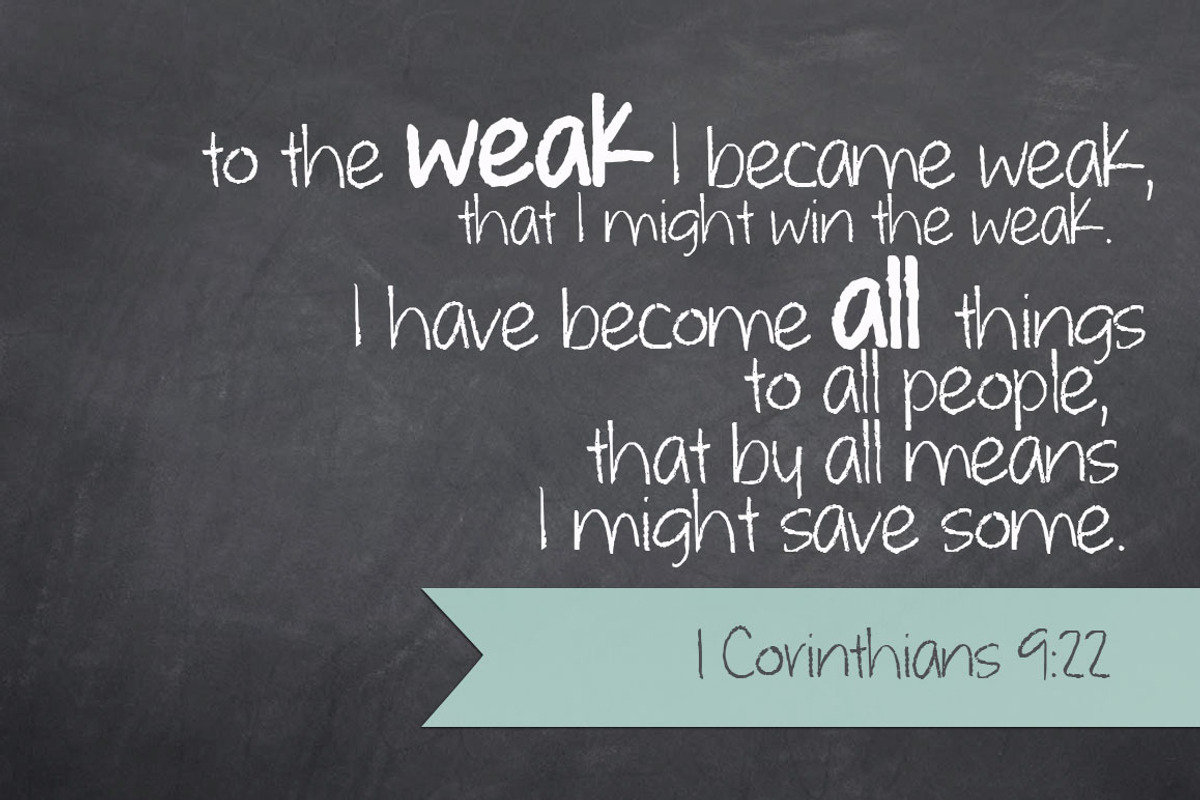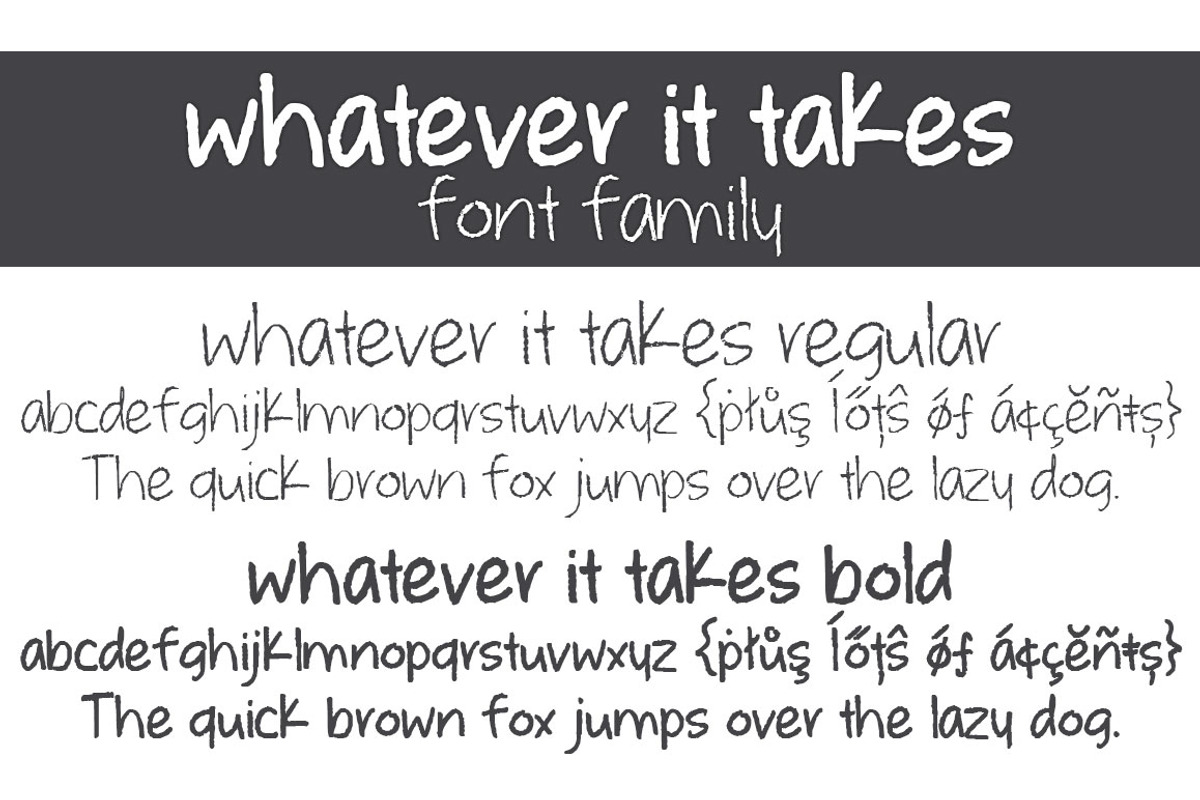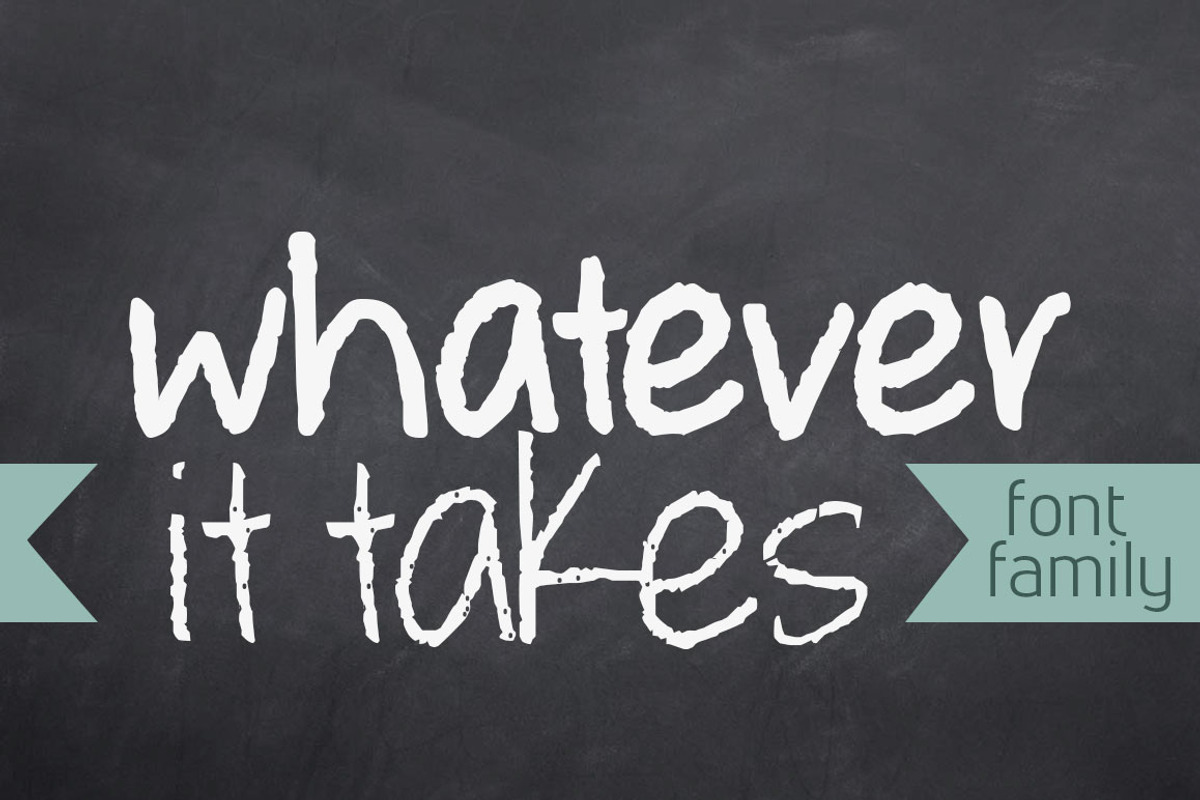
Whatever it Takes Font Family
A handwritten chalkboard typeface that’s great for giving a crafty, homemade look to your designs! Now you can get both versions- regular and bold- at a reduced price!